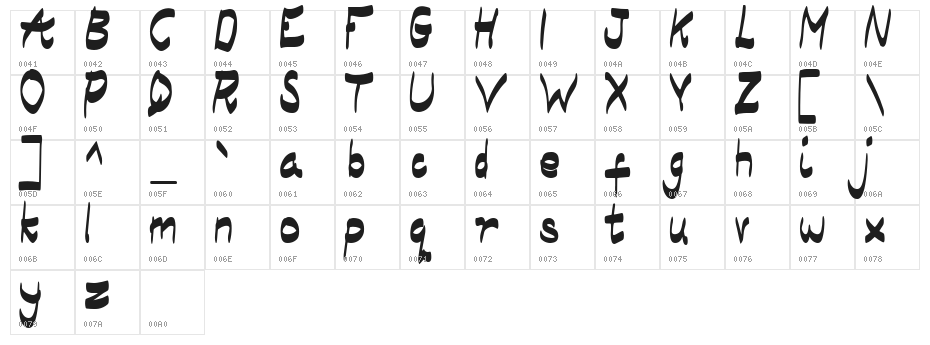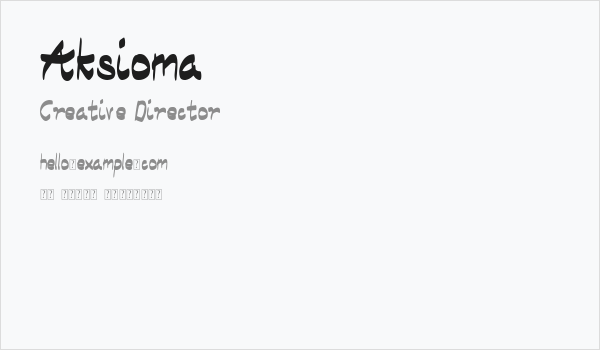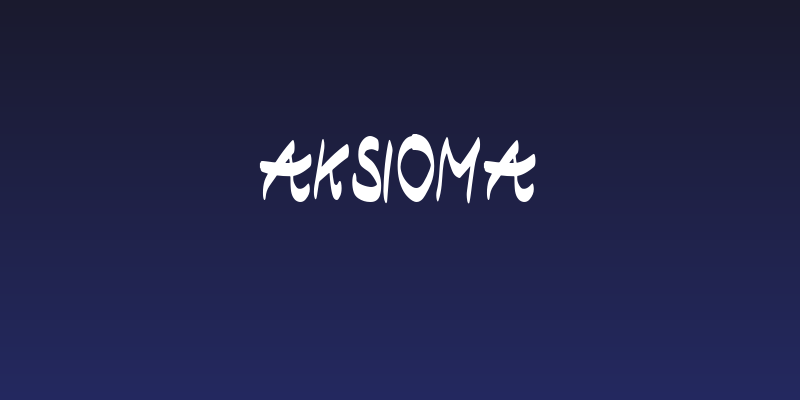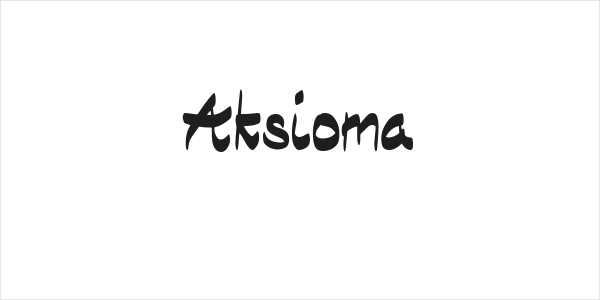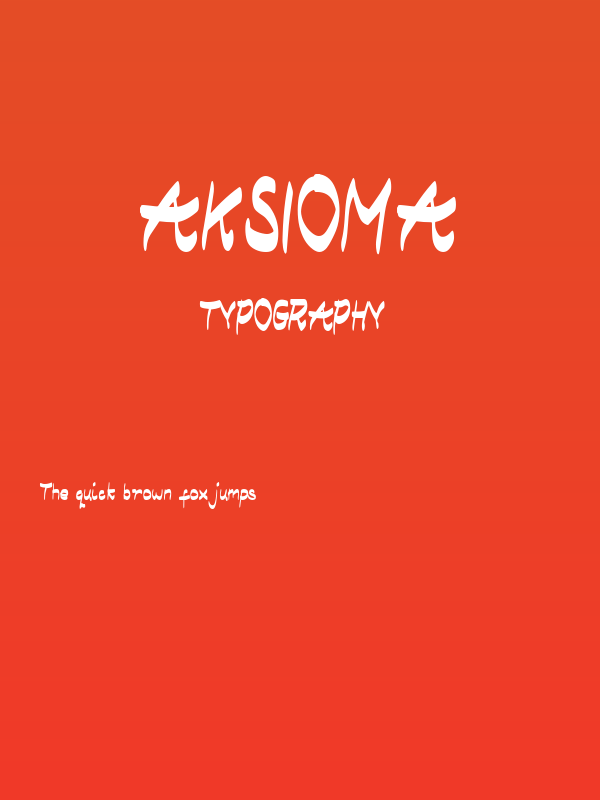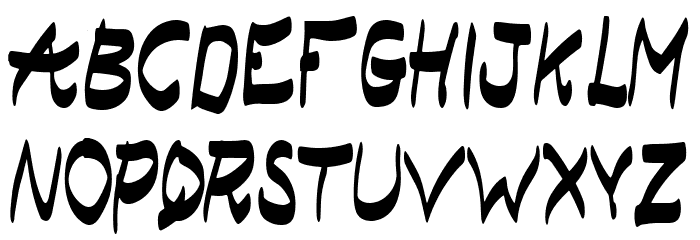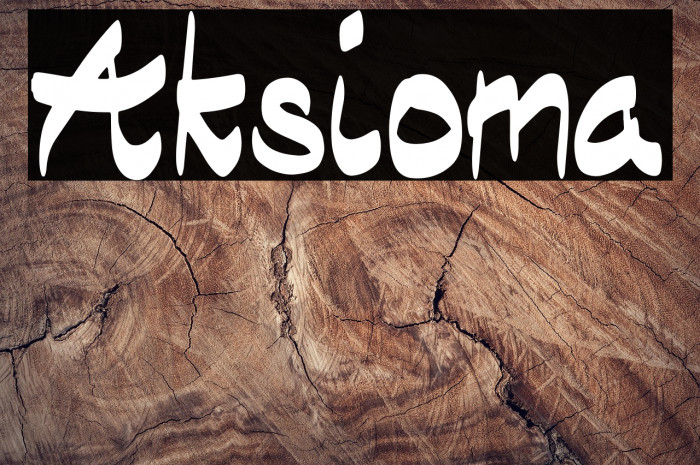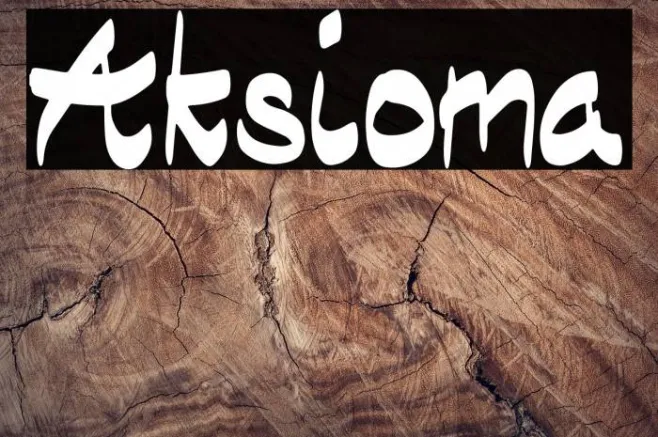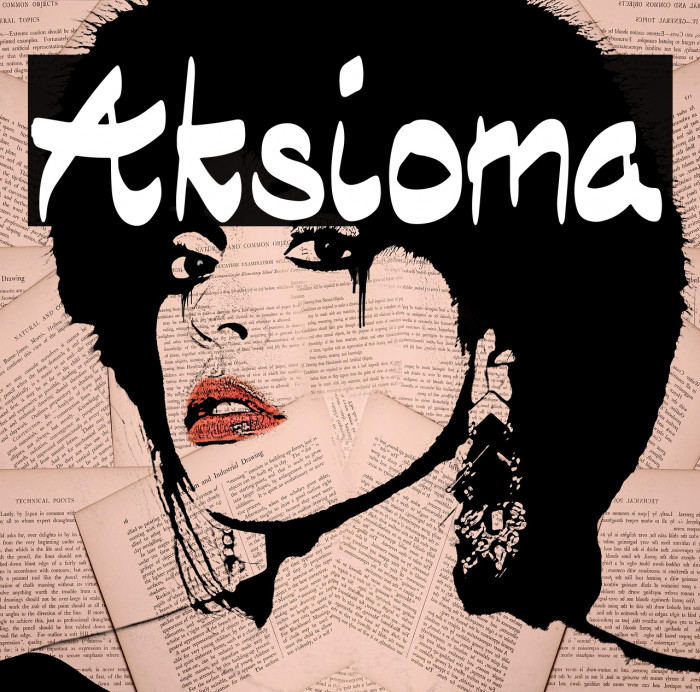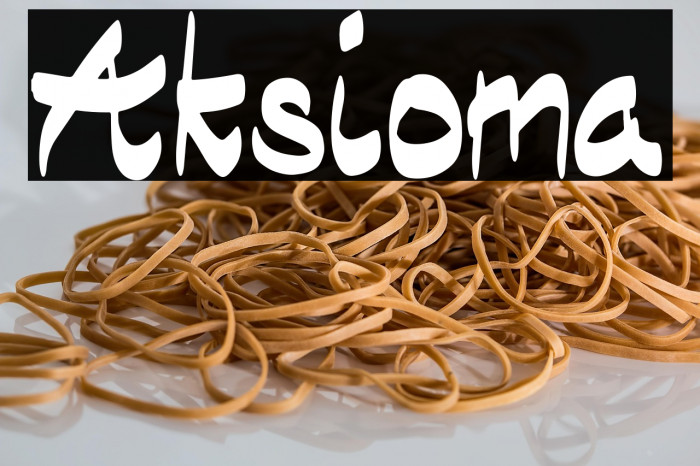
Aksioma Font
Aksioma Description
This font features a bold and dynamic style with a handwritten appearance. The characters have a playful and artistic flair, with varying stroke thickness that adds a sense of movement and energy. The uppercase letters are particularly expressive, with unique shapes and angles that give each character a distinct personality. The lowercase letters maintain this lively aesthetic, ensuring consistency throughout the typeface. The numbers and special characters are equally stylized, making this font suitable for creative and informal applications.